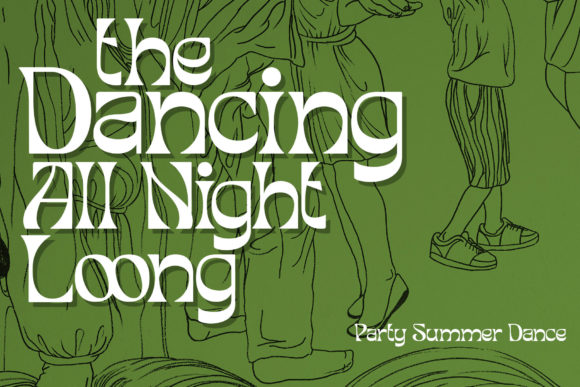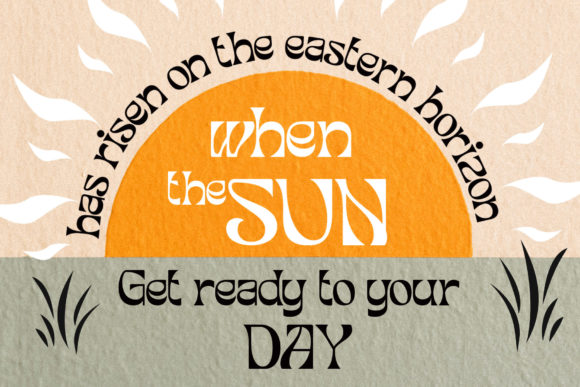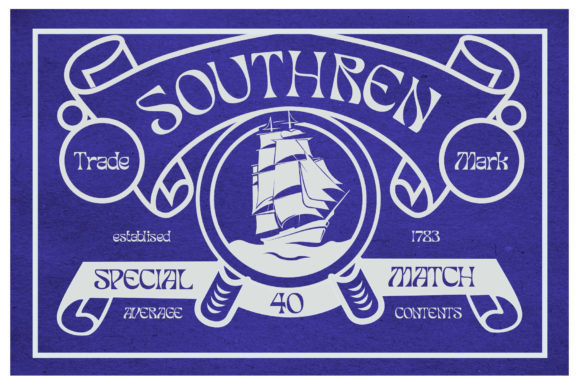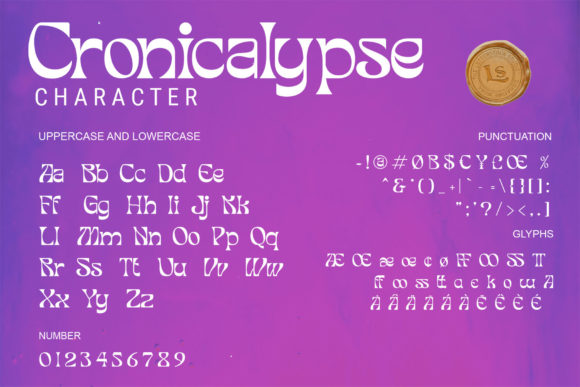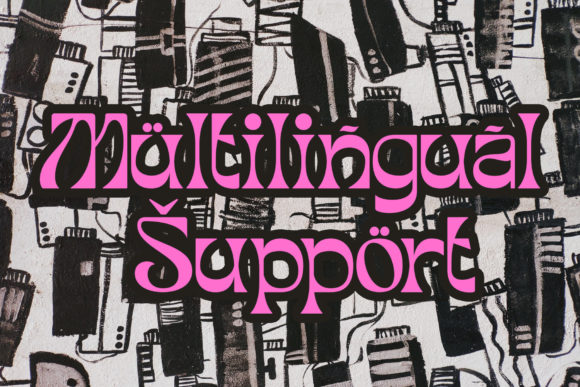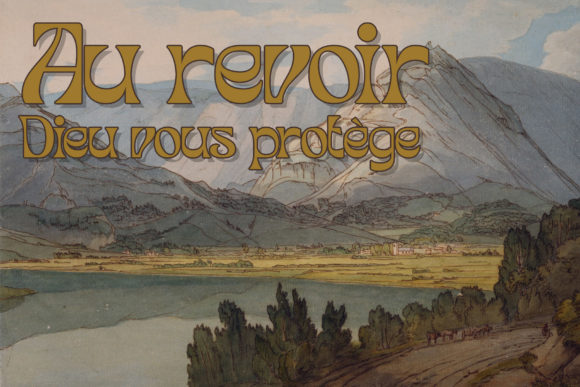
Cronicalypse Font: Elevate Your Crafting Ideas with Whimsy and Chic
Are you a designer, crafter, or DIY enthusiast looking for a font that can add a touch of whimsy and sophistication to your projects? Look no further than the Cronicalypse Font! This stunning display font is designed to elevate a wide range of crafting ideas, from cards and branding to labels and more. In this article, we’ll dive into the world of Cronicalypse Font and explore its features, benefits, and uses.
What is Cronicalypse Font?
Cronicalypse Font is a unique and stylish display font that boasts a whimsical and chic aesthetic. Its distinctive design makes it perfect for adding a touch of personality to your crafting projects. Whether you’re creating handmade cards, branding materials, or labels, Cronicalypse Font is sure to make your designs stand out from the crowd.
Key Features of Cronicalypse Font
- Whimsical and Chic Design: Cronicalypse Font features a playful and sophisticated design that’s perfect for adding a touch of elegance to your crafting projects.
- Display Font: This font is specifically designed as a display font, making it ideal for headlines, titles, and other prominent text elements.
- Versatile: Cronicalypse Font can be used for a wide range of crafting ideas, from cards and invitations to branding and labels.
Benefits of Using Cronicalypse Font
So why choose Cronicalypse Font for your crafting projects? Here are just a few benefits of using this amazing font:
- Adds a Touch of Whimsy: Cronicalypse Font adds a playful and whimsical touch to your designs, making them more engaging and eye-catching.
- Elevates Your Designs: This font is designed to elevate your crafting projects, making them look more sophisticated and professional.
- Increases Versatility: With Cronicalypse Font, you can create a wide range of crafting projects, from cards and invitations to branding and labels.
- Easy to Pair with Other Fonts: This font pairs well with other fonts, making it easy to mix and match different styles to create a unique look.
Uses for Cronicalypse Font
So what can you create with Cronicalypse Font? The possibilities are endless! Here are a few ideas to get you started:
- Handmade Cards: Add a touch of whimsy to your handmade cards with Cronicalypse Font.
- Branding Materials: Use this font to create eye-catching branding materials, such as logos, business cards, and brochures.
- Labels: Create custom labels for your products or gifts with Cronicalypse Font.
- Invitations: Make your invitations stand out with this unique and stylish font.
Tips for Using Cronicalypse Font
Here are a few tips for getting the most out of Cronicalypse Font:
- Experiment with Different Sizes: Try using Cronicalypse Font in different sizes to create visual interest and hierarchy.
- Pair with Other Fonts: Experiment with pairing Cronicalypse Font with other fonts to create a unique look.
- Use for Headlines and Titles: This font is perfect for headlines and titles, so be sure to use it to add a touch of whimsy to your designs.
In conclusion, Cronicalypse Font is a whimsical and chic display font that’s perfect for designers, crafters, and DIY enthusiasts. With its unique design, versatility, and ease of use, this font is sure to elevate your crafting projects and add a touch of sophistication to your designs. So why wait? Add Cronicalypse Font to your favorite creations and let yourself be amazed by the outcome!